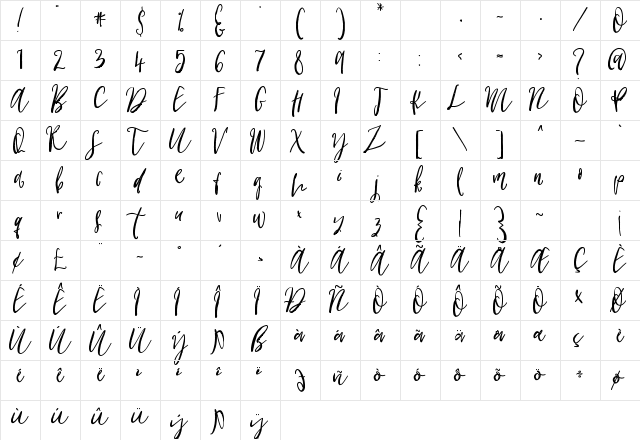
Complete Cottage Gardens Alternates Bold glyph index. Displaying only characters natively supported by Cottage Gardens Alternates Bold font.
Cottage Gardens Alternates is a composed and adaptable typeface that performs quietly and consistently across a wide range of design contexts. Its bold stroke weight gives it real presence on the page.